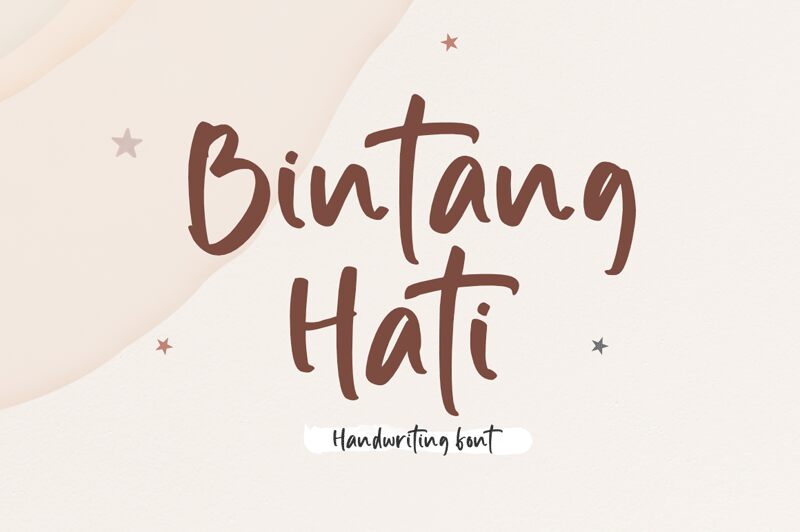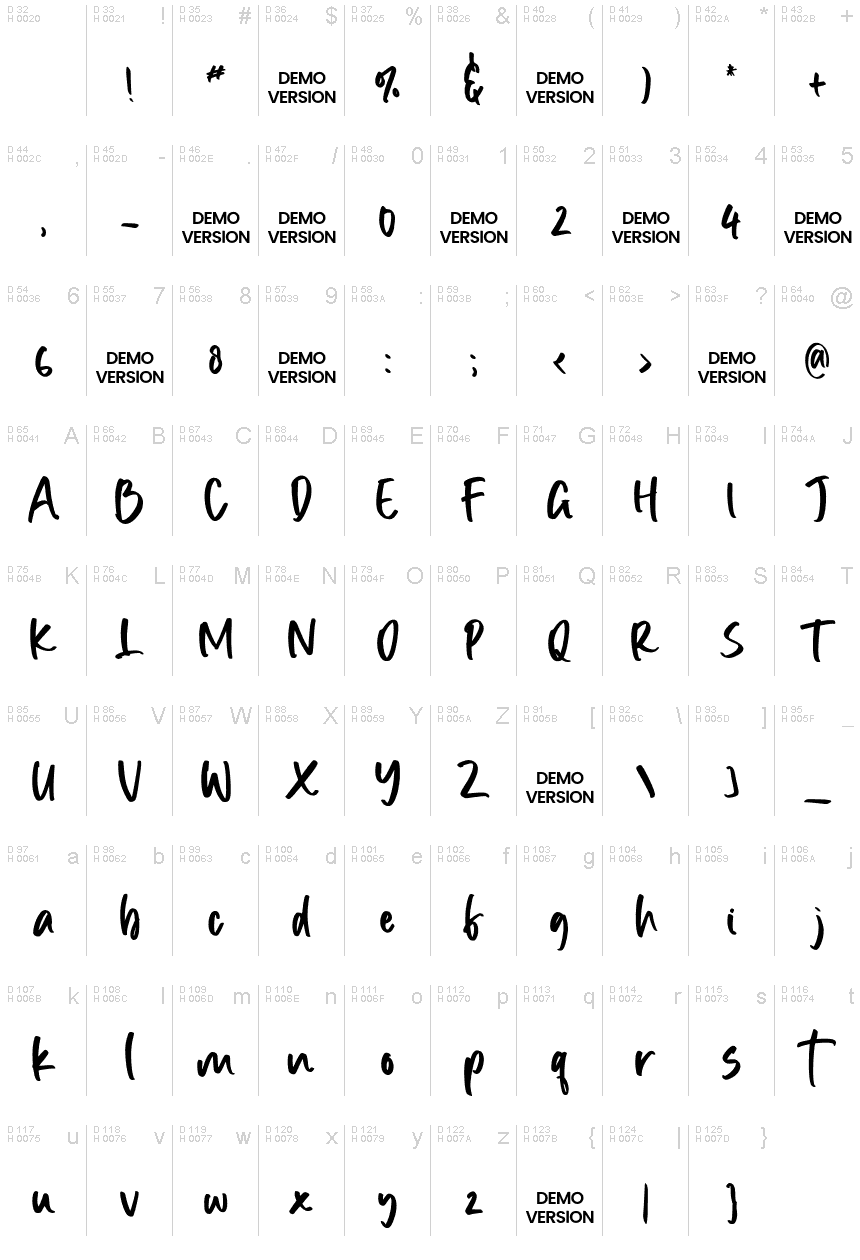
Bintang Hati Regular
Bintang Hati, a casual handwritten font designed by Viola Type, adds a touch of warmth and personalization to any project.
With its playful curves and authentic strokes, this font brings an organic feel to wedding invitations, love letters, and heartfelt cards. The semi-bold typeface gives a subtle boldness to blog headers and social media quotes, making them stand out effortlessly. Its versatile nature allows Bintang Hati to be the perfect choice for branding materials like logos or packaging designs, adding an approachable and friendly touch to your products.